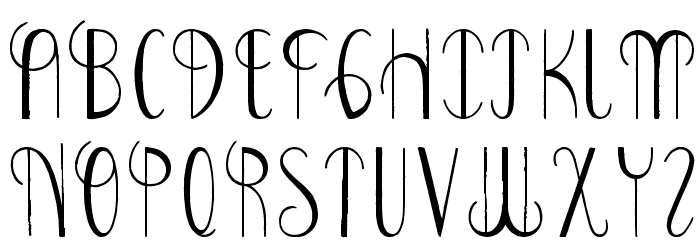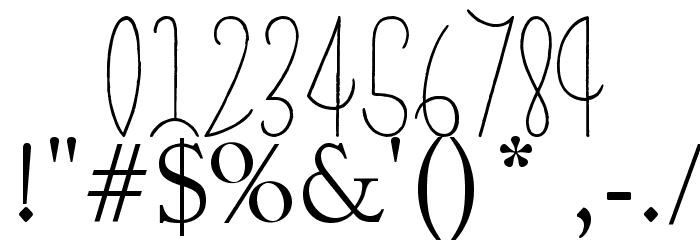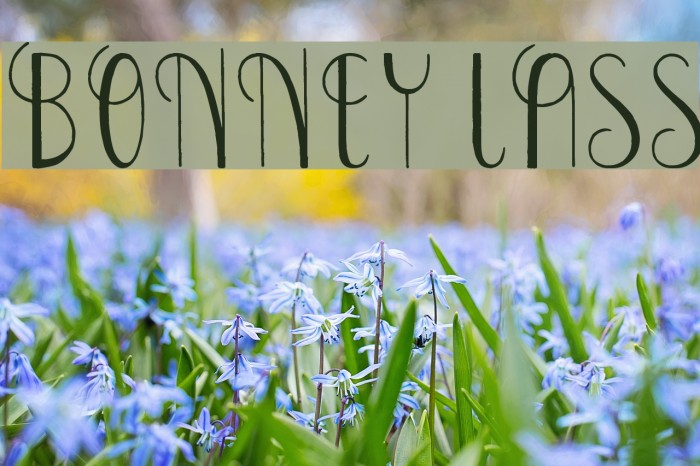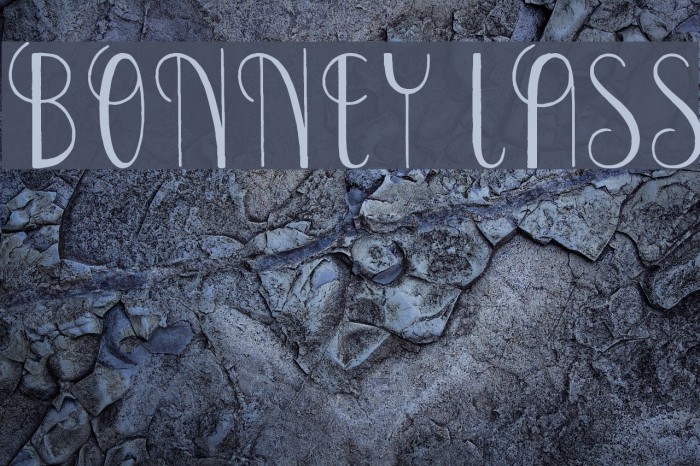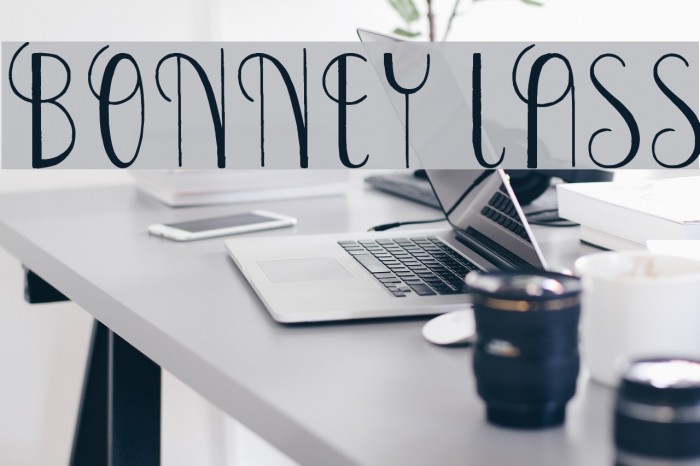
Bonney Lass Font
This font features a unique and artistic design with elongated and curved strokes that give it a whimsical and decorative appearance. The characters are tall and slender, with a mix of sharp and rounded edges, creating a playful yet elegant look. The uppercase letters are particularly distinctive, with some incorporating loops and swirls that add to the font's charm. The lowercase letters maintain a consistent style, complementing the uppercase with their own subtle flourishes. Numbers and special characters follow the same aesthetic, ensuring a cohesive overall appearance. This font is ideal for projects that require a touch of creativity and flair.
A whimsical and decorative font with elongated, curved strokes and playful flourishes.
- Proposed Projects: Ideal for invitations, greeting cards, branding, and creative projects that require a unique and artistic touch.
- Use Case: Logos, Invitations, Creative projects